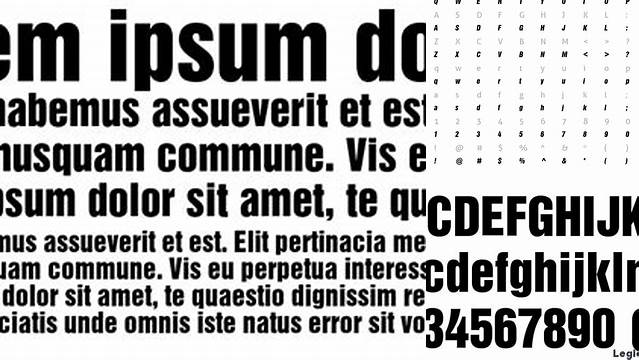
Introduction to Helvetica Inserat Regular
Hey guys! Let's dive into the world of typography, specifically focusing on the Helvetica Inserat Regular font. This font is a timeless classic, known for its clean lines, versatility, and readability. It's a staple in the design world, used extensively in branding, advertising, and editorial design. If you're a designer, or just someone who appreciates good typography, understanding Helvetica Inserat Regular is a must.
Helvetica Inserat Regular is a member of the Helvetica typeface family, designed by Eduard Hoffmann and Max Miedinger in 1957. It's renowned for its neutrality and clarity, making it an excellent choice for various applications. Its design emphasizes legibility, with a consistent stroke width and a simple, sans-serif structure. This makes it highly readable in both print and digital formats. The font exudes a sense of professionalism and modernity, which is why it remains a popular choice for corporate identities and branding materials. When you're looking for a typeface that communicates trustworthiness and sophistication, Helvetica Inserat Regular is a solid bet. You'll often see it used in logos, signage, and marketing collateral for high-end brands. Its subtle elegance ensures it never feels dated, contributing to its enduring appeal. Plus, the font's wide character set supports multiple languages, making it a globally accessible option. So, whether you're designing a website, crafting a brochure, or creating a presentation, Helvetica Inserat Regular can bring a touch of class and clarity to your work. Its versatility allows it to blend seamlessly into a variety of design styles, from minimalist to more complex layouts. Understanding its characteristics and applications is crucial for any designer aiming to create visually appealing and effective communication materials. Remember, a great font can significantly enhance the overall impact of your design, and Helvetica Inserat Regular is definitely one of those fonts!
Why Choose Helvetica Inserat Regular?
So, why should you specifically choose Helvetica Inserat Regular? Well, there are several compelling reasons. First and foremost, its readability is exceptional. The font's clean and simple design makes it easy on the eyes, even in large blocks of text. This is crucial for ensuring your message is effectively communicated, whether it's on a website, a poster, or a business card. Think about it: you want your audience to focus on your content, not struggle to decipher the text. Helvetica Inserat Regular ensures a smooth reading experience, which is always a plus. Secondly, the font boasts versatility. It works well in a multitude of contexts, from headlines to body text. This adaptability makes it a fantastic option for projects where you need a consistent and cohesive look. You don't have to switch between multiple fonts to achieve visual harmony; Helvetica Inserat Regular can handle it all. Its neutral appearance also means it pairs well with other fonts, giving you even more flexibility in your design choices.
Moreover, its timelessness is a major advantage. Unlike trendy fonts that come and go, Helvetica Inserat Regular has stood the test of time. It was designed in the 1950s and is still widely used today, which speaks volumes about its enduring appeal. Using this font can give your designs a classic, professional feel that won't look dated anytime soon. This is particularly important for branding, where consistency and longevity are key. Furthermore, Helvetica Inserat Regular carries a certain prestige. It's associated with quality and sophistication, thanks to its widespread use by prominent brands and institutions. Incorporating it into your designs can subtly elevate your brand's image and convey a sense of trustworthiness. In the world of design, perception is everything, and Helvetica Inserat Regular has a reputation that precedes it. Let's not forget its accessibility. The font is widely available and compatible with most design software, making it a practical choice for designers of all levels. Whether you're a seasoned pro or just starting out, you'll find it easy to work with. So, if you're looking for a font that combines readability, versatility, timelessness, and a touch of prestige, Helvetica Inserat Regular is an excellent choice. It's a reliable workhorse that will serve you well in a wide range of design projects, making it a valuable addition to your typographic toolkit.
In conclusion, Helvetica Inserat Regular is a fantastic font with a long history and a wide range of applications. Its readability, versatility, and timeless appeal make it a top choice for designers. While it's not typically available for free download, understanding your licensing options and exploring free alternatives can help you achieve a similar look without breaking the bank. Remember to always prioritize legal and ethical practices when using fonts in your projects. By considering the legal aspects, exploring free alternatives, and understanding the characteristics of Helvetica Inserat Regular, you can make informed decisions about your typography and create visually stunning designs. Whether you opt for the original or a close substitute, the key is to choose a font that effectively communicates your message and enhances the overall aesthetic of your work. Happy designing, guys!